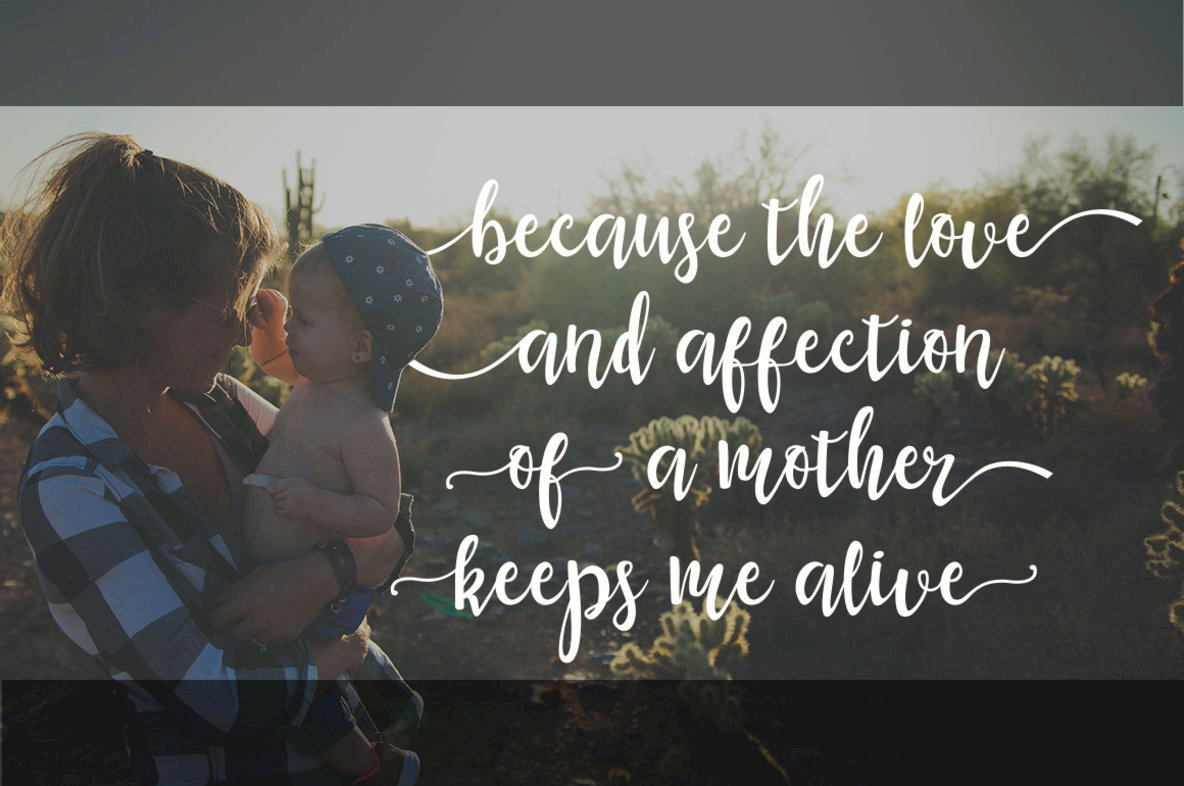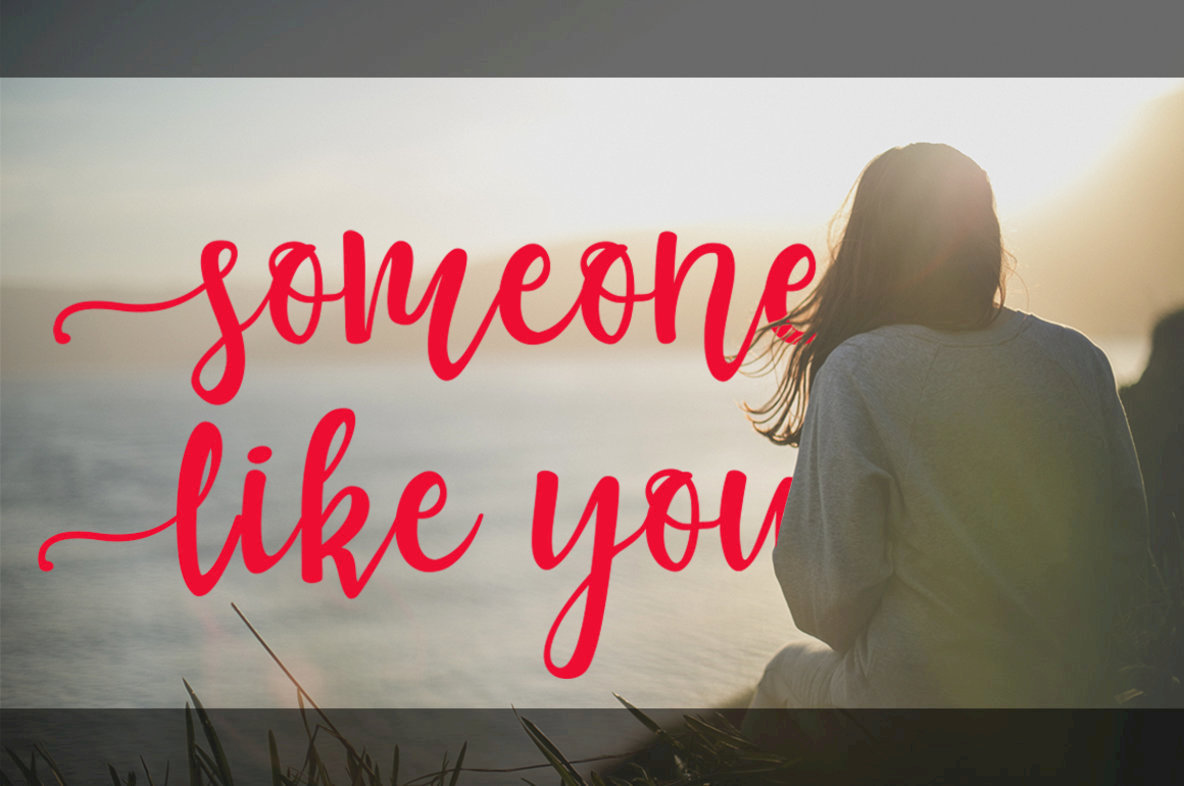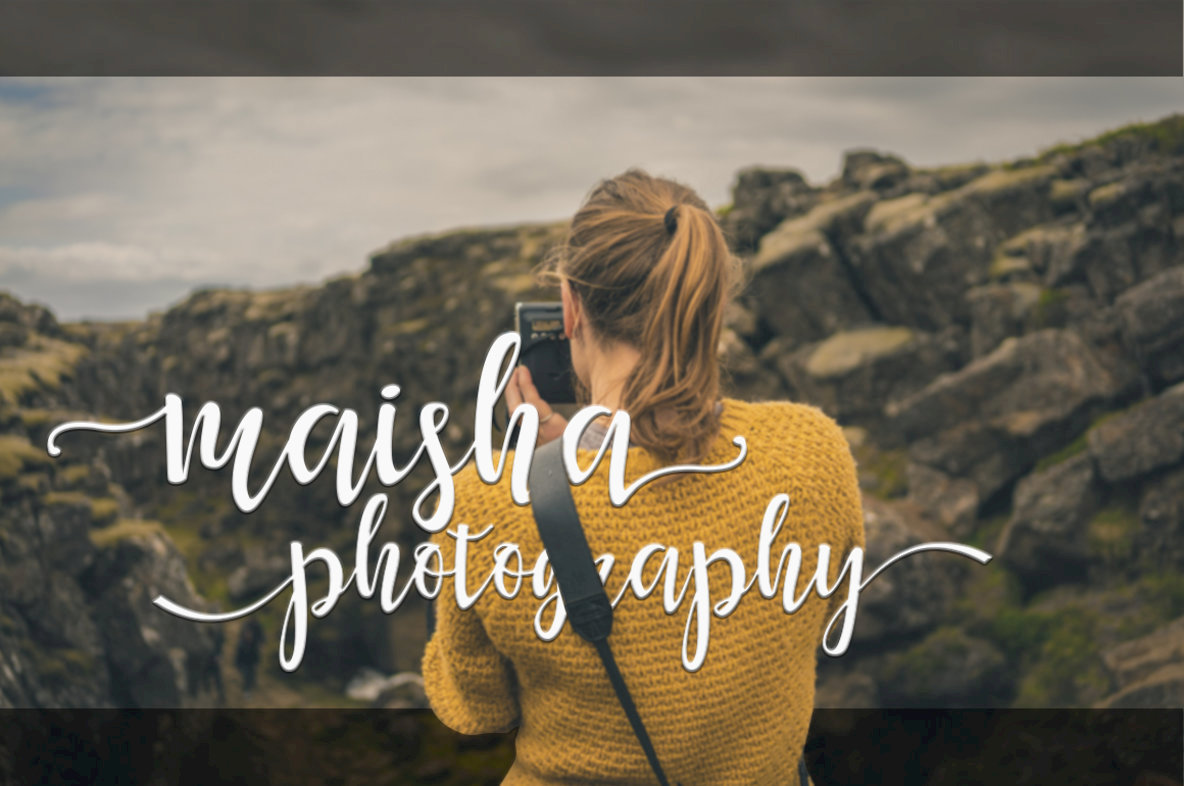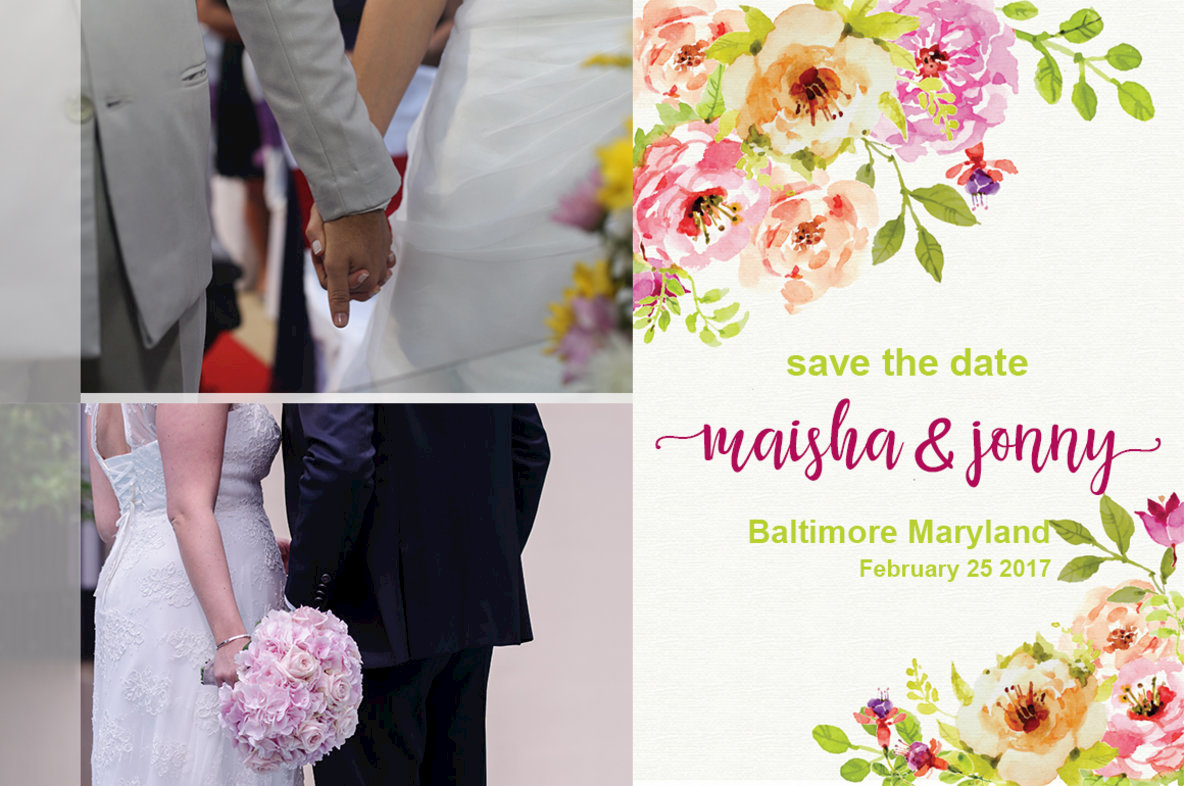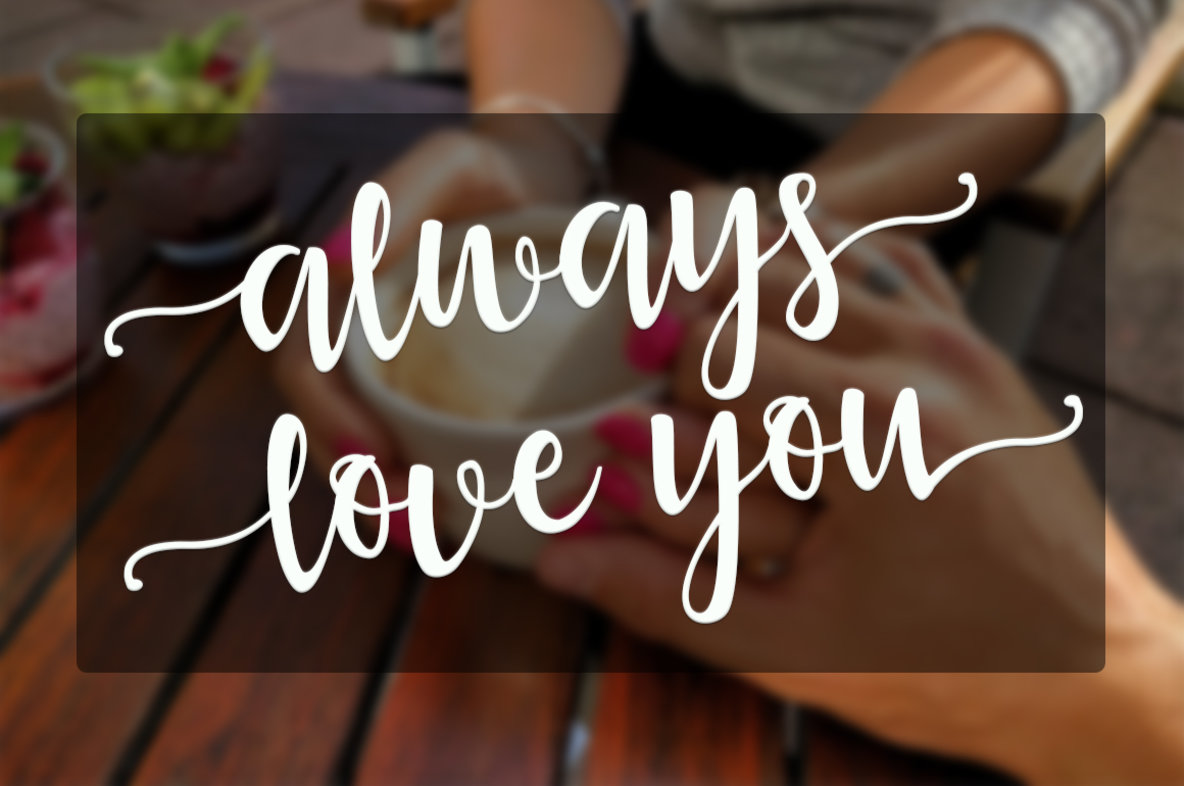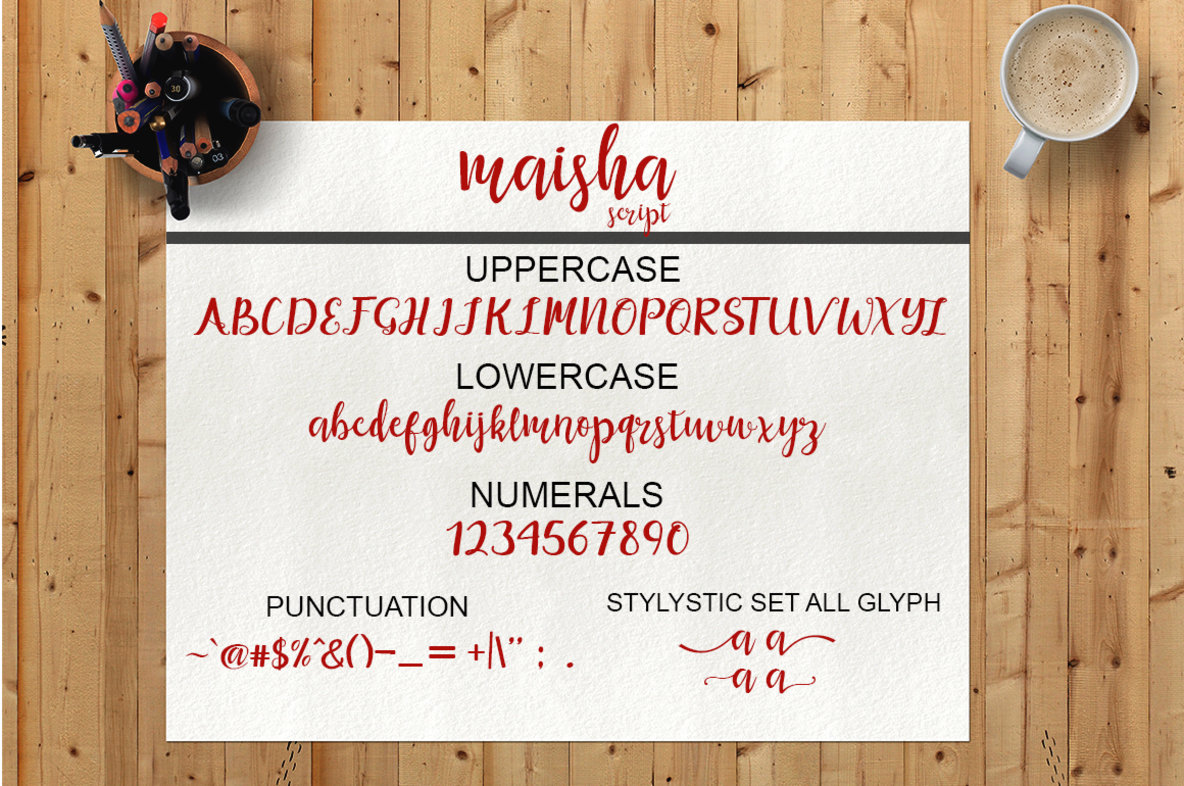
Maisha Script Font
Maisha Script
Maisha Script is a vibrant handwriting font characterized by its modern and cool aesthetic. Ideally suited for greeting cards, wedding invitations, and business cards, it also finds its place in the world of photography, adding a personal touch to any project. Maisha Script offers 339 glyphs and alternate characters, easily accessed with software like Adobe Illustrator, InDesign, Photoshop, Corel Draw, and Microsoft Word. With full PUA Unicode support, designers and users can seamlessly integrate these alternatives into their work. For users not utilizing advanced software such as Adobe Illustrator or CorelDraw, alternate glyphs remain accessible through Font Book on Mac or Character Map on Windows. This ensures Maisha Script can be enjoyed by a broad range of creative professionals, facilitating its use across various platforms and applications.Maisha Script: A Contemporary Handwriting Font
Flexible and Accessible Design